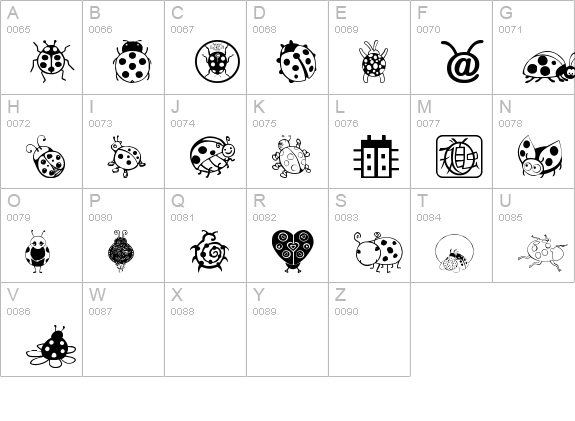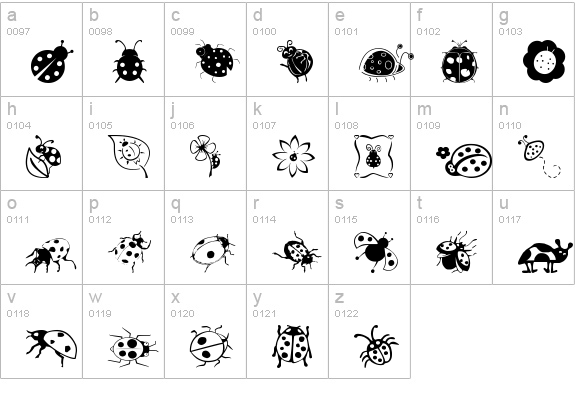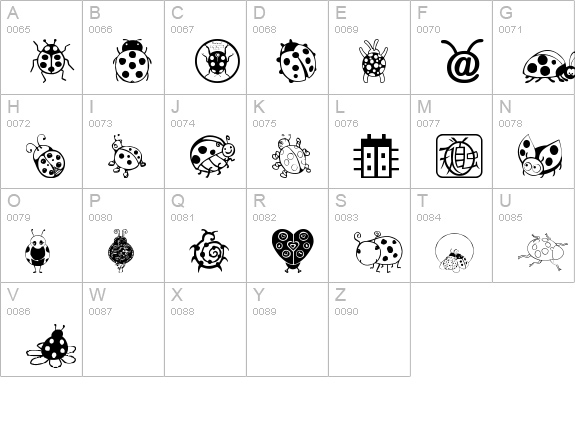
Ladybug Dings font is a whimsical and charming typeface that will add a touch of fun to your designs. This delightful font features a variety of cute ladybug-themed dingbats that can be used to enhance greeting cards, invitations, posters, and more. The playful and energetic vibe of Ladybug Dings font makes it perfect for projects aimed at children or those looking to inject a bit of lightheartedness into their designs. Best of all, Ladybug Dings font is available for free download at FontsMarket.com. Simply visit the website and add this adorable font to your collection without any cost. Embrace the joy and positivity that Ladybug Dings font brings to your projects and let your creativity soar with its delightful characters.